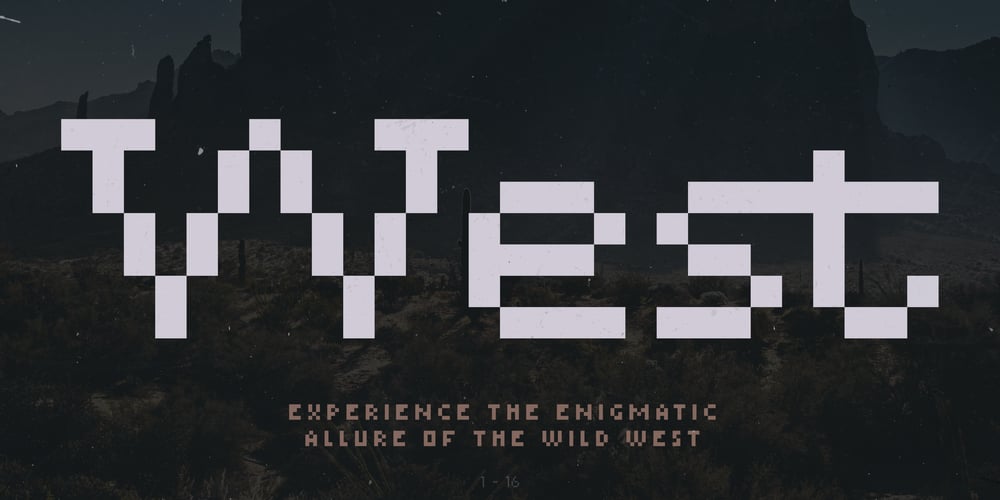
ND Raster West
ND Raster West font
ND Raster West Font Family was designed by Wolf Boese and published by NeueDeutsche. ND Raster West contains 5 styles and family package options. A Pixel Font with Wild West Spirit inspired by the daring cowboys and classic MS DOS games. Immerse in the rustic landscapes of Deadwood saloons and tumbleweeds as you evoke the nostalgia of retro gaming graphics. ND Raster West delivers crisp and sharp letterforms, reminiscent of arcade games and early computer screens. Its authentic Western flair and rugged edges capture the essence of the Old West, perfect for titles, headings, or body text in various creative projects.